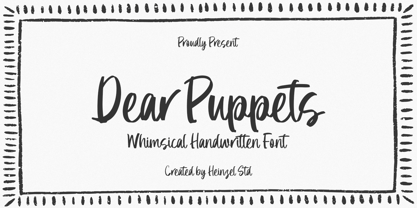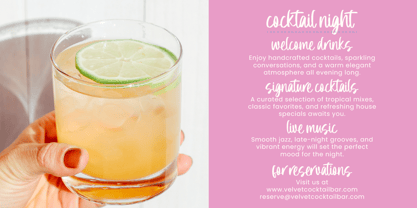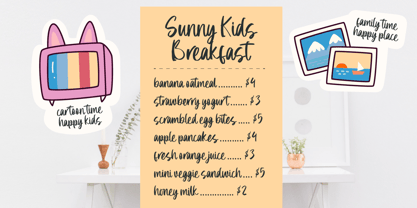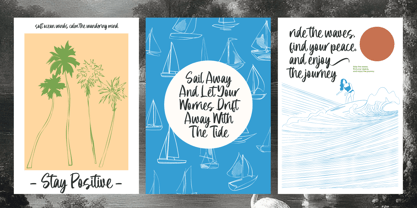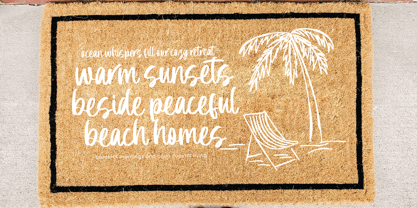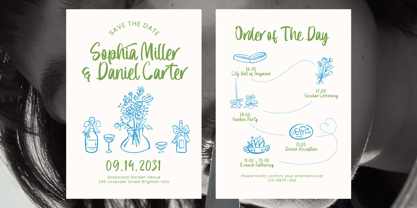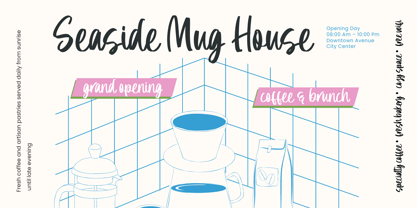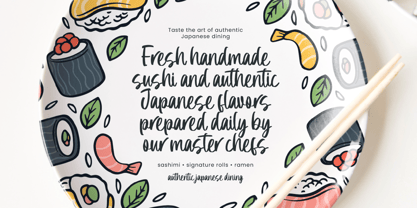
Dear Puppets
La familia tipográfica Dear Puppets fue diseñada por Nofi Sofyan Hadi y publicada por Heinzel Std. Dear Puppets contiene 2 estilos y opciones de paquete familiar. Más información sobre esta familia
Dear Puppets is a playful handwritten font designed with a charming and whimsical personality. Featuring natural brush-inspired strokes and an authentic hand-drawn feel, this font brings warmth, creativity, and fun into every design project. Its casual lettering style makes it perfect for children’s branding, playful logos, greeting cards, social media graphics, packaging, posters, invitations, quotes, and creative craft projects.